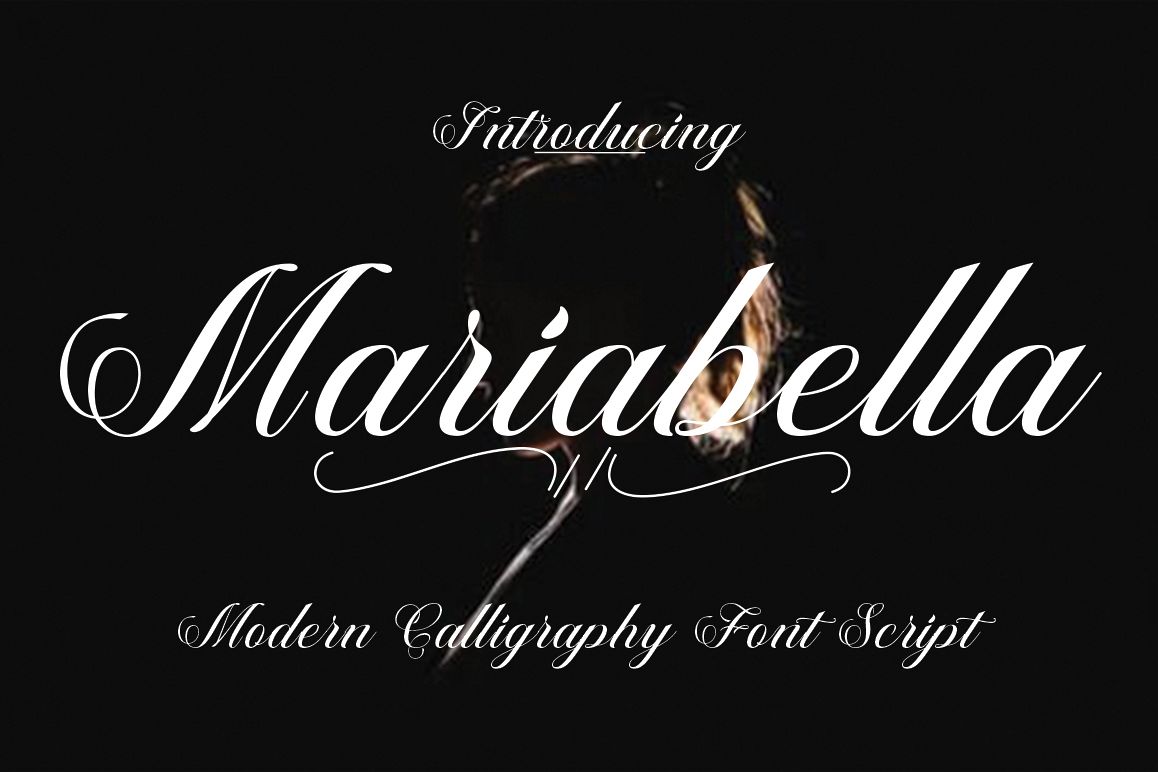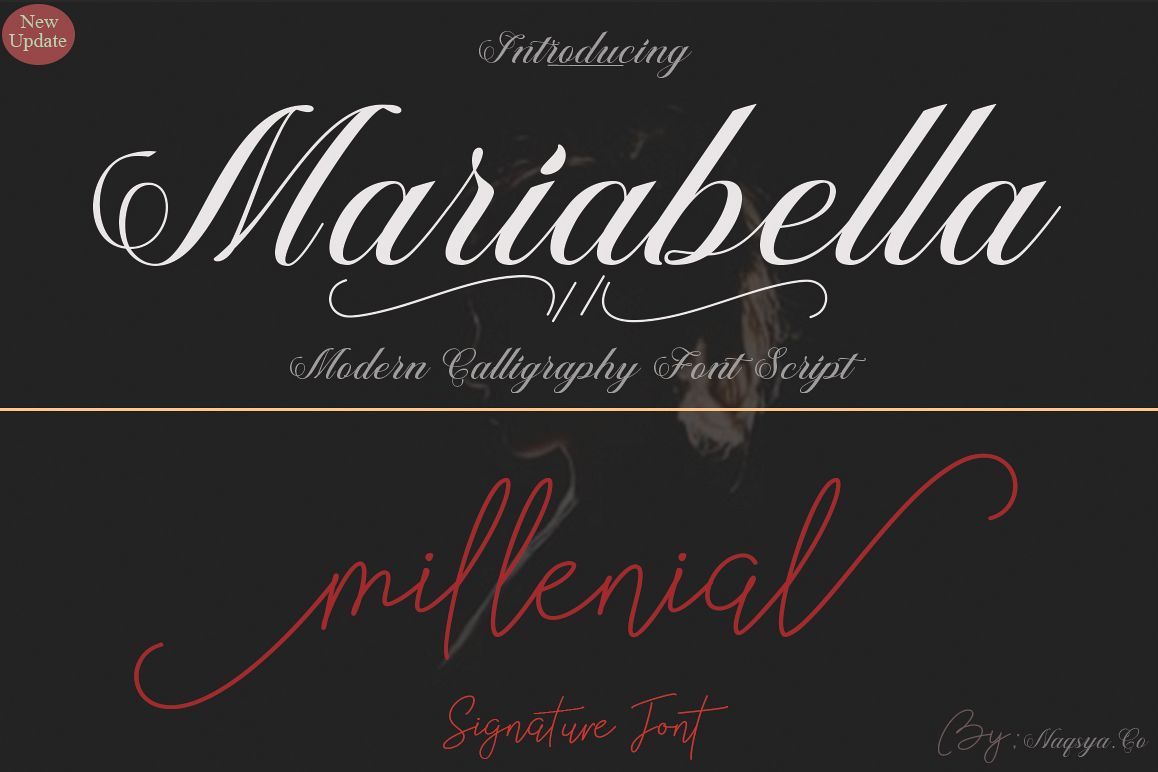
Mariabella
Introducing
New Update Mariabella is modern script font, every single letters have been carefully crafted to make your text looks beautiful. With modern script style this font will perfect for many different project ex: quotes, blog header, poster, wedding, branding, logo, fashion, apparel, letter, invitation, stationery, etc.